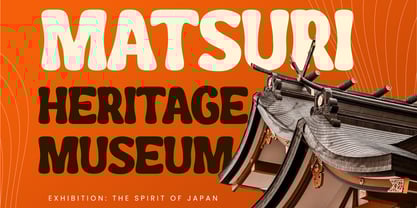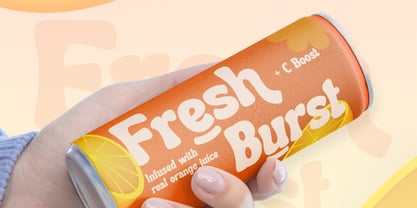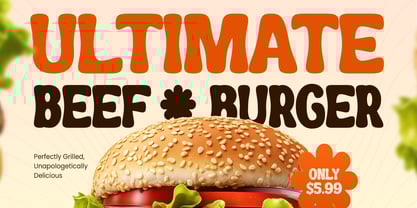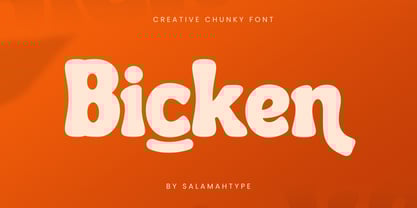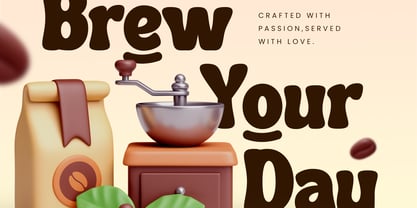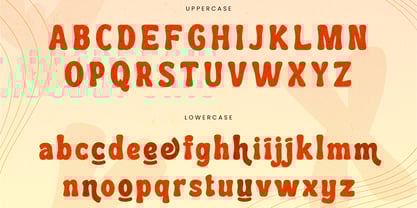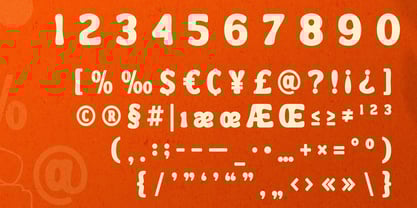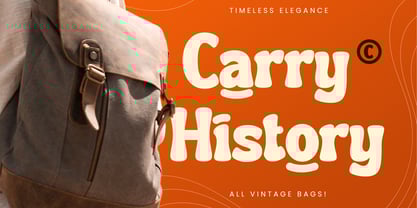
Bicken
The Bicken Font Family was designed by Aswangga Sadike and published by Salamahtype. Bicken contains 2 styles and family package options. More about this family
Bicken is a creative chunky serif font with a groovy and playful vibe, perfect for adding bold character to product packaging, logos, banners, branding materials, posters, and more.
– Uppercase and lowercase
– Symbols and punctuation
– Alternates
– Multilingual support